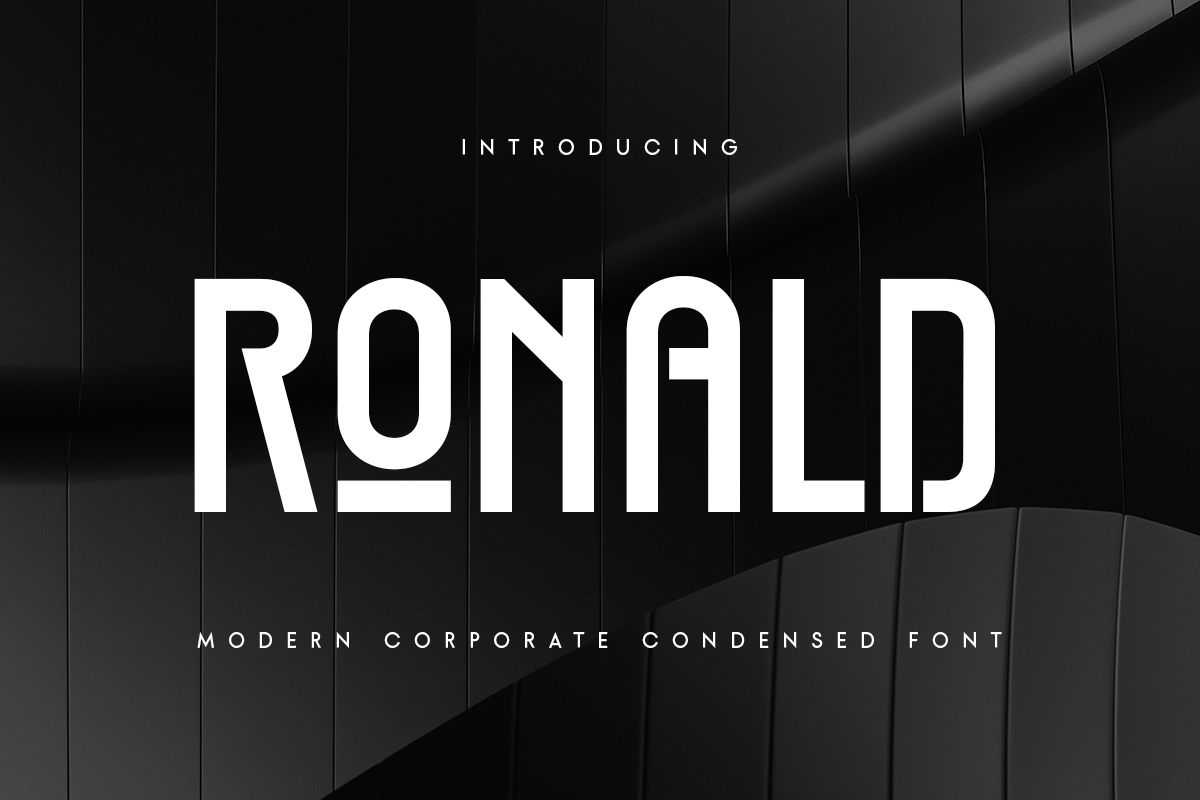
Ronald - Modern Condensed Font
A New Condensed Sans Serif font are prepared special for heading, title, and typography needs. It's so perfect to add your style and headline overview. And specially for Headline font, we crafted for unique style and modern feels so enjoy to create any project that will show your main idea out.